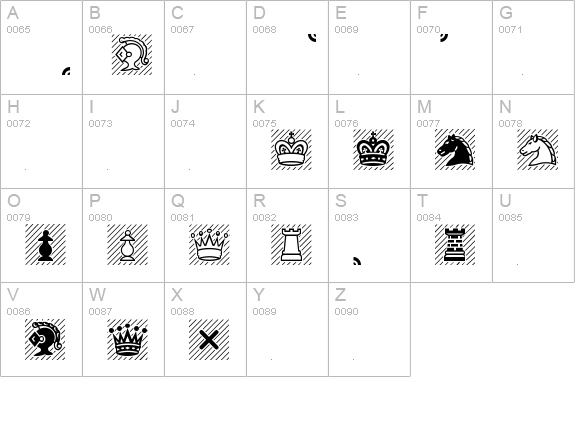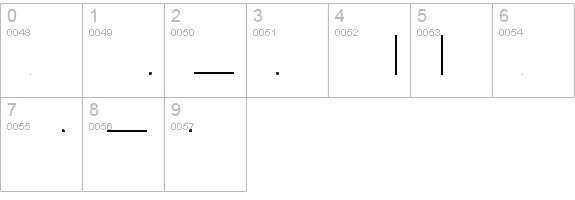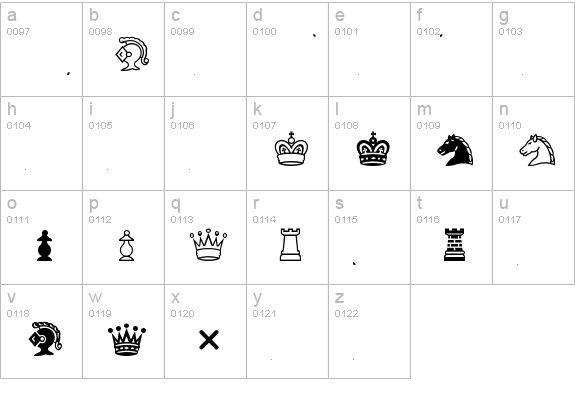
Chess Condal Font Details
Chess Condal font is a stylish and elegant typeface that exudes sophistication and class. With its sleek lines and intricate details, this font is perfect for adding a touch of refinement to any design project. Whether you're creating a logo, website, or print material, Chess Condal is sure to make a statement. What makes Chess Condal even more appealing is that it is completely free to download. That's right, you can access this stunning font at no cost on FontsMarket.com. So why wait? Elevate your designs with the timeless beauty of Chess Condal font today.